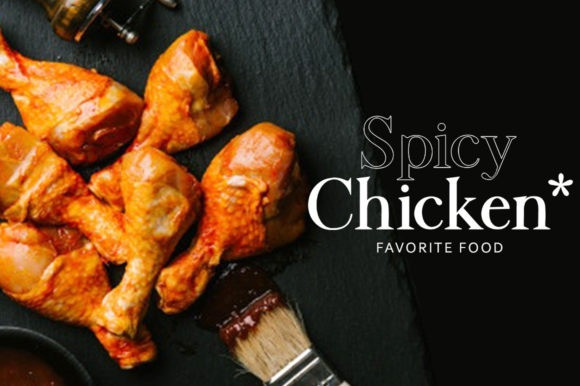
Sophia Font
Proudly present Sophia Serif Font is a modern and stylish serif font family. Extremely versatile, this font fits into a variety of designs and jobs, elevating them to the highest levels. Add this font to your favorite creative ideas and see how they come to life!